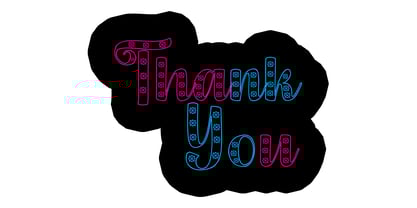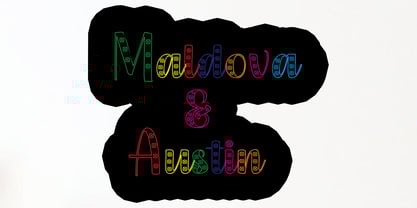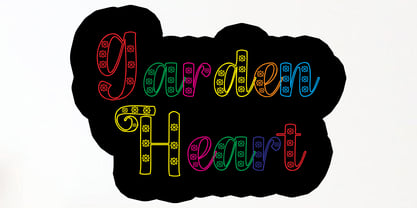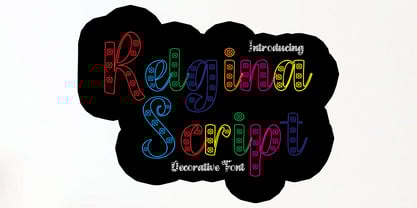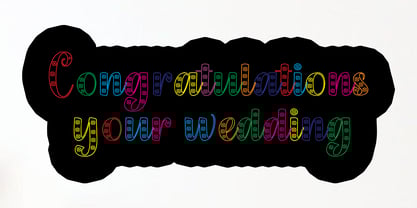
Relgina Script
by Shape Studio
The Relgina Script Font Family was designed by Teuku Saifullah and published by Shape Studio. Relgina Script contains 1 styles. More about this family
Relgina Script is a duo styled handwritten font which feels equally charming and delicate. This font is PUA encoded which means you can access all of the glyphs and swashes with ease! Roselani Script Font Duo will turn any creative idea into a standout!
Relgina Script looks lovely on wedding invitations, thank you cards, quotes, greeting cards, logos, business cards and more. Perfect for using in ink or watercolour. Including initial and terminal letters, alternates, ligatures and multiple language support.